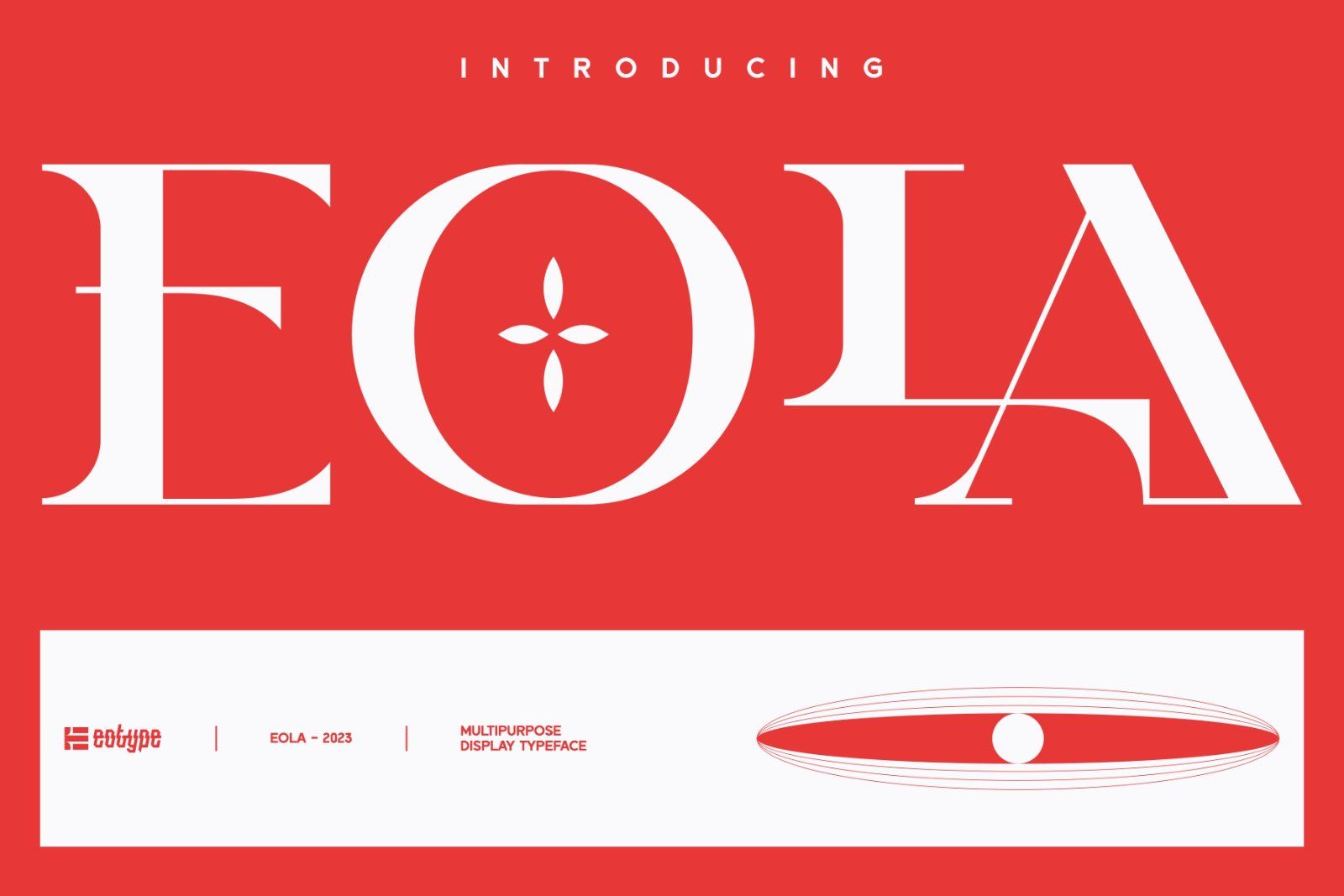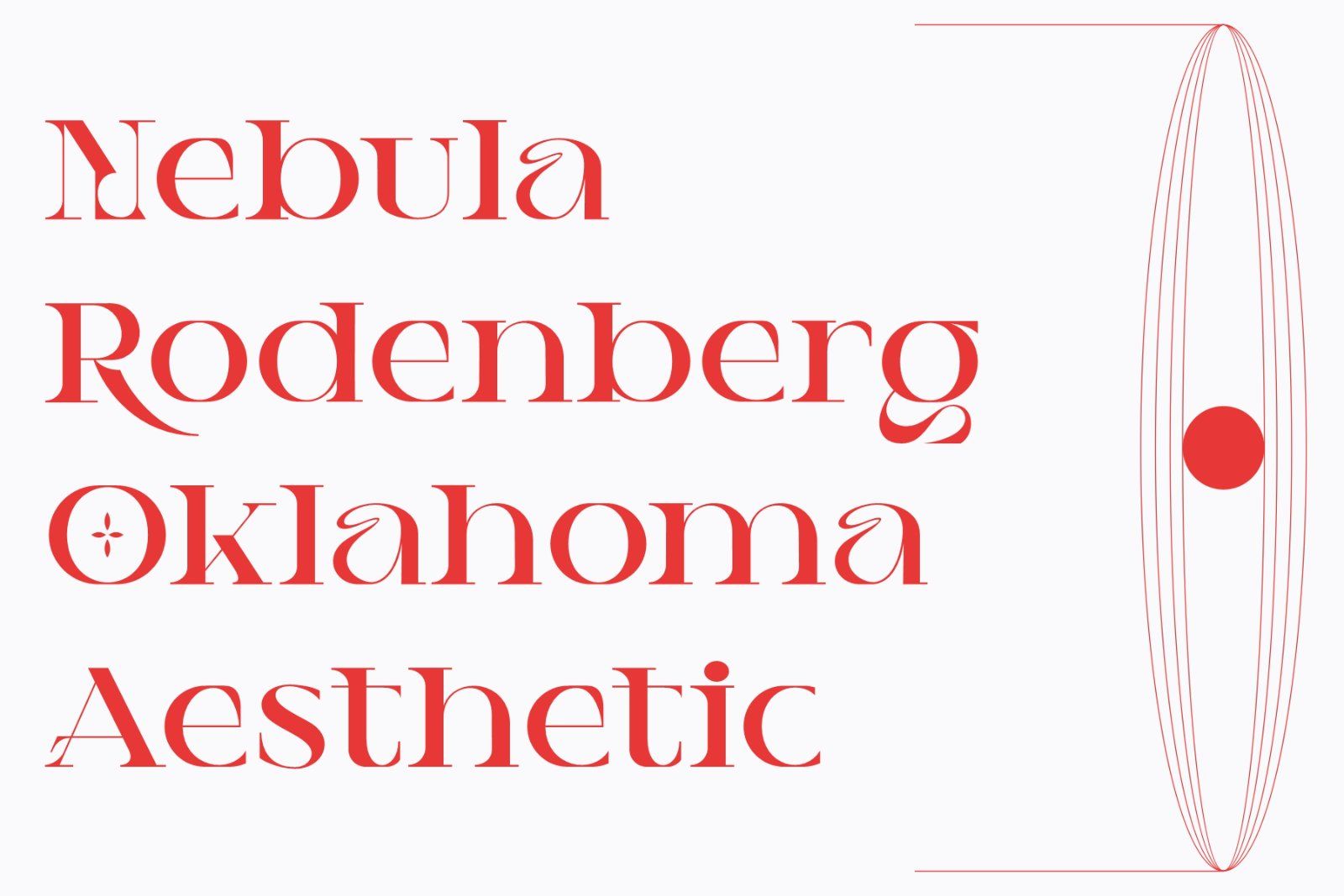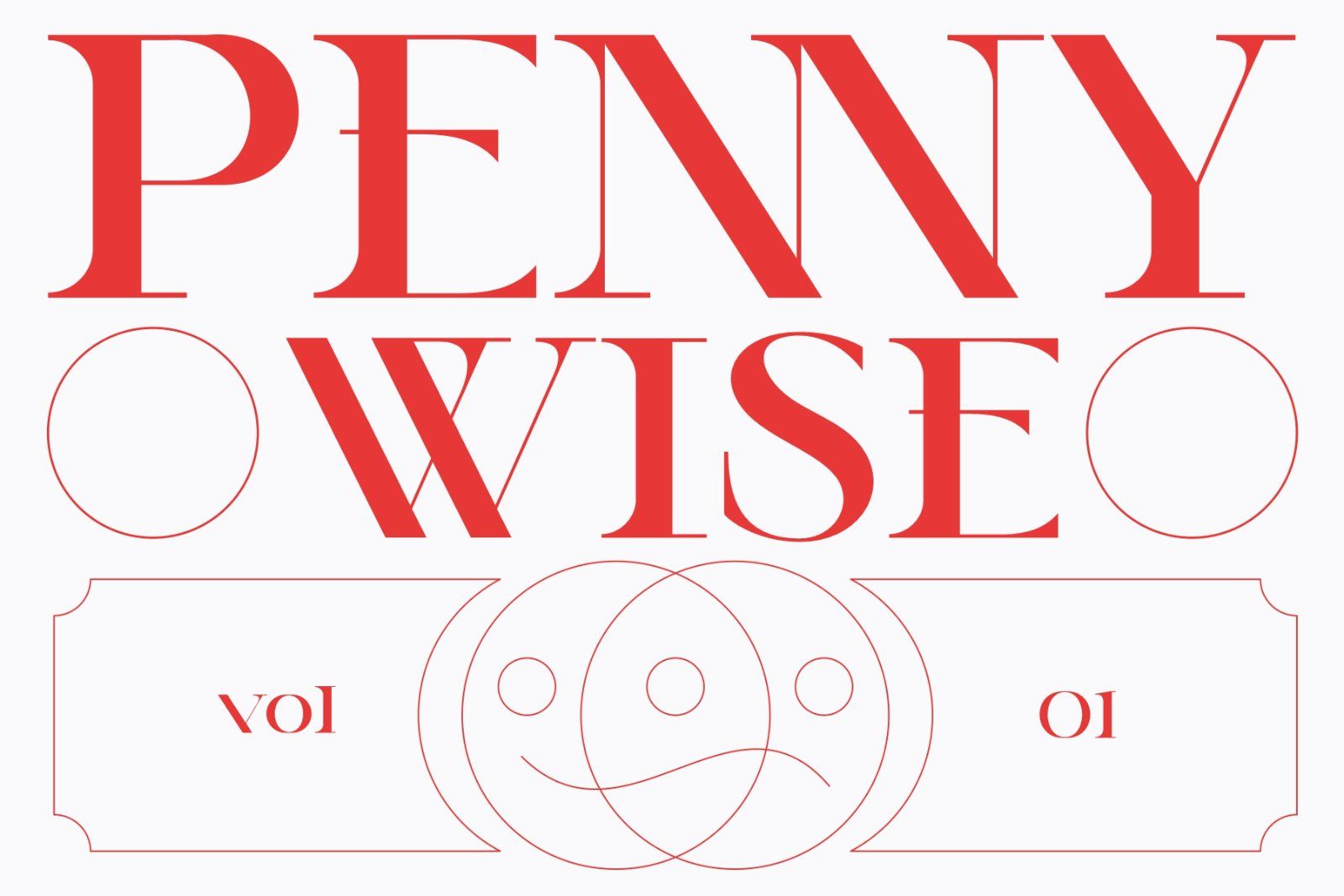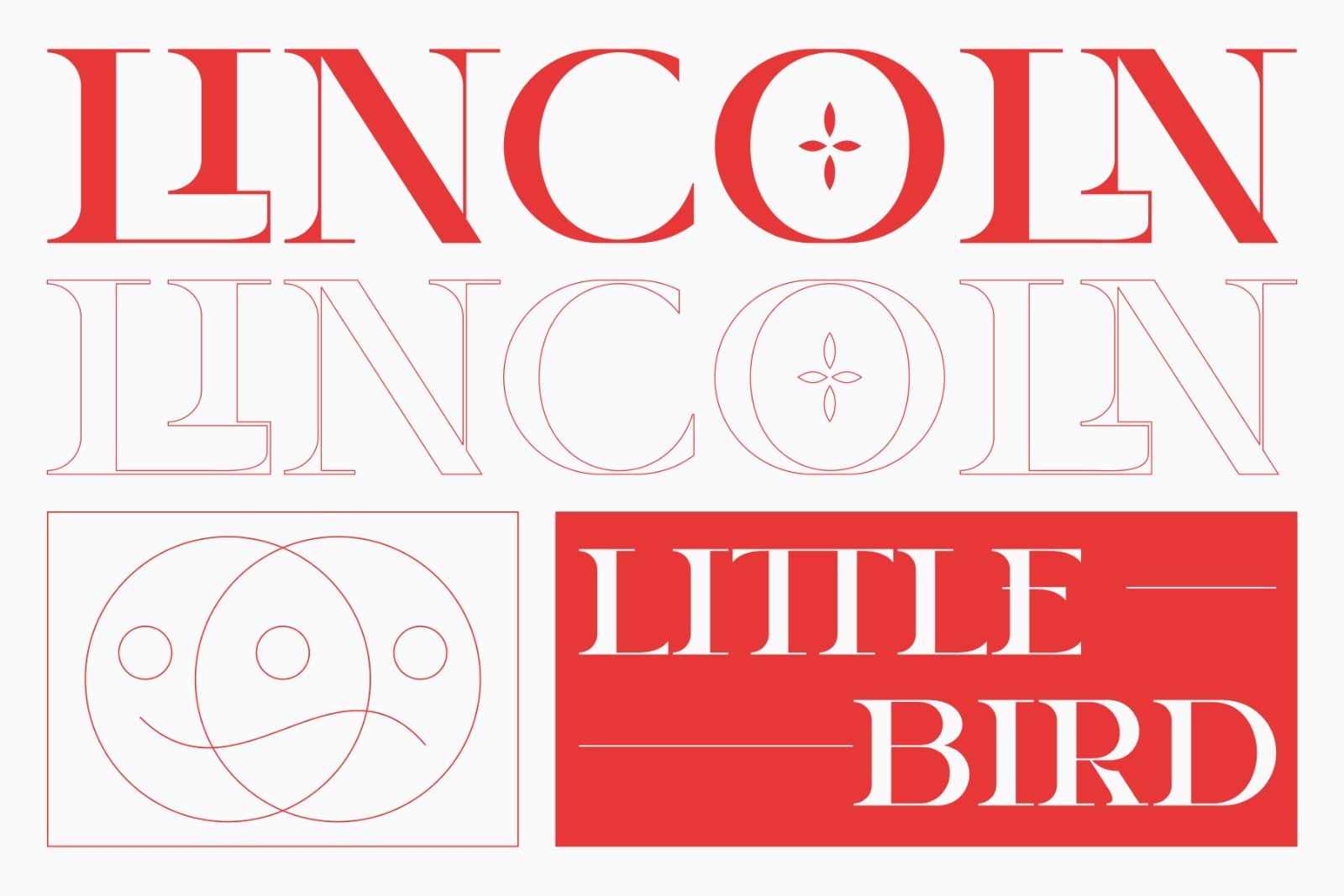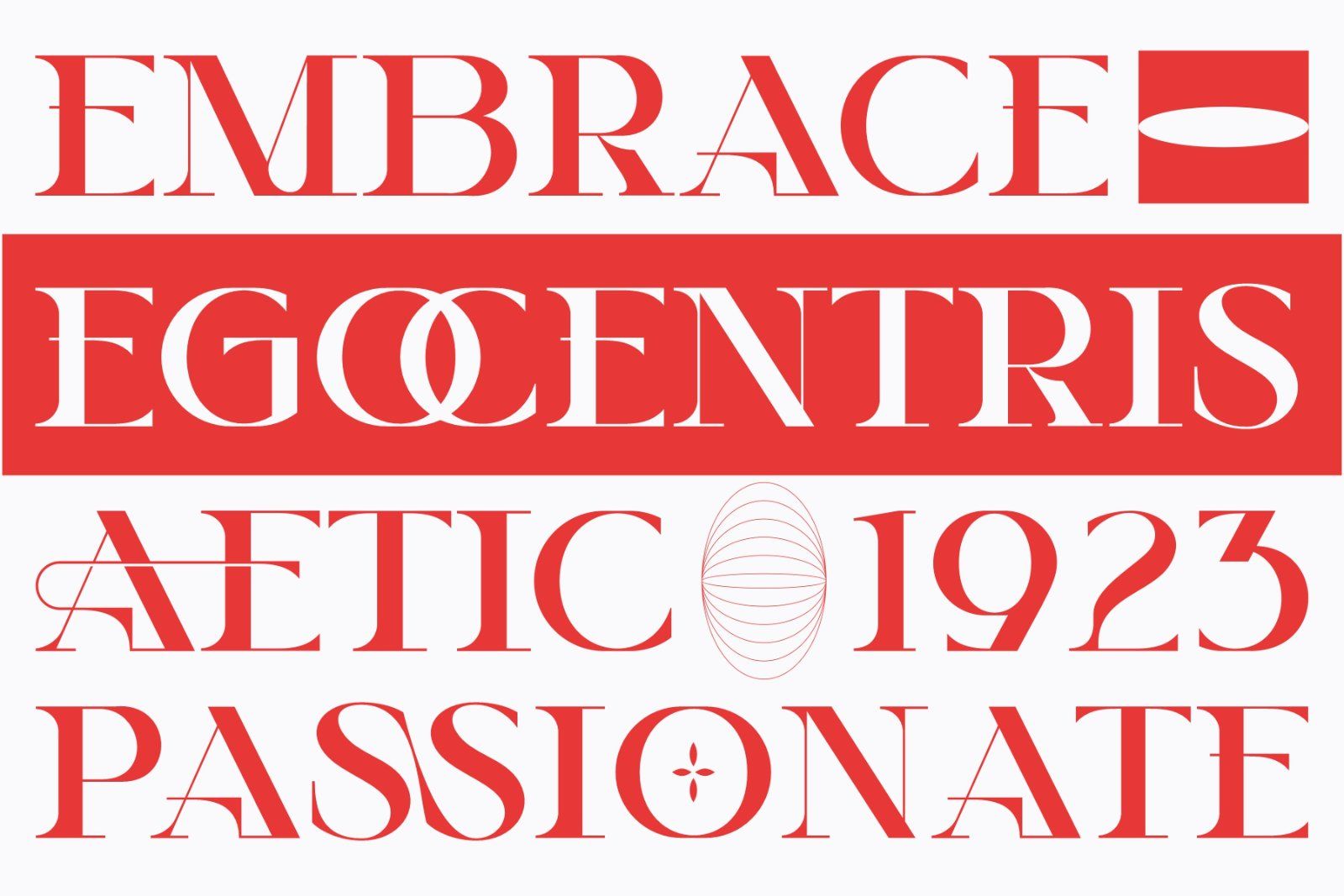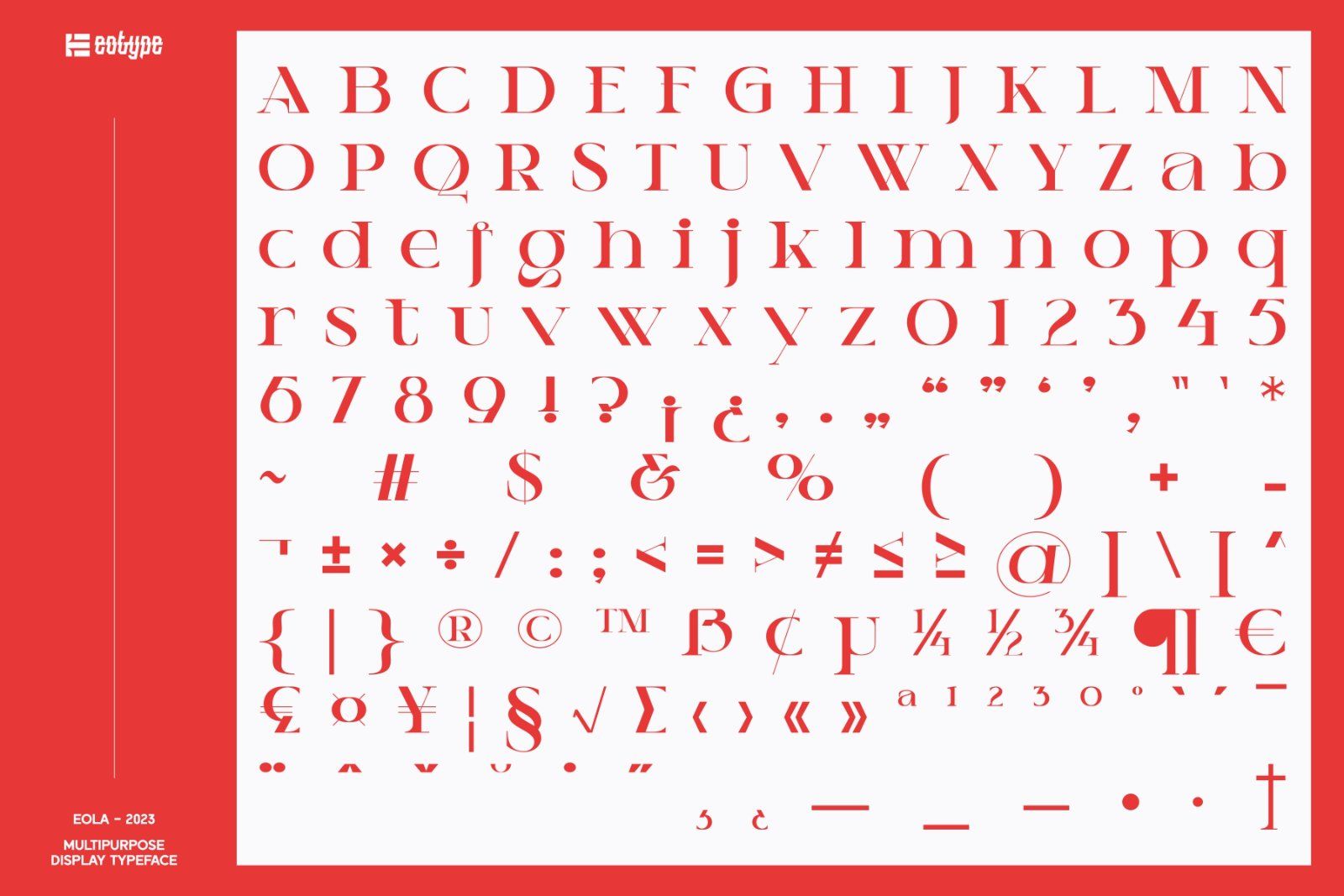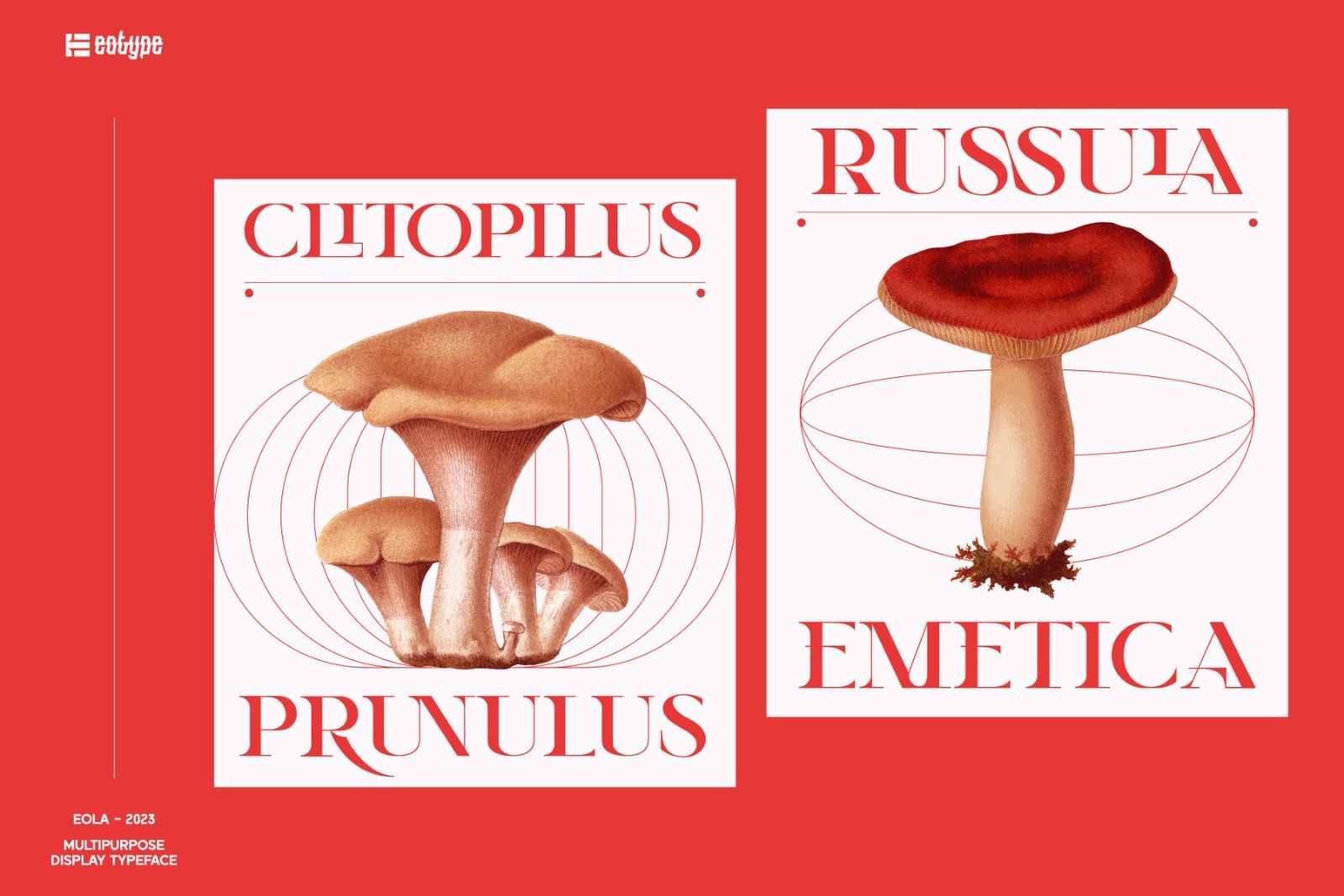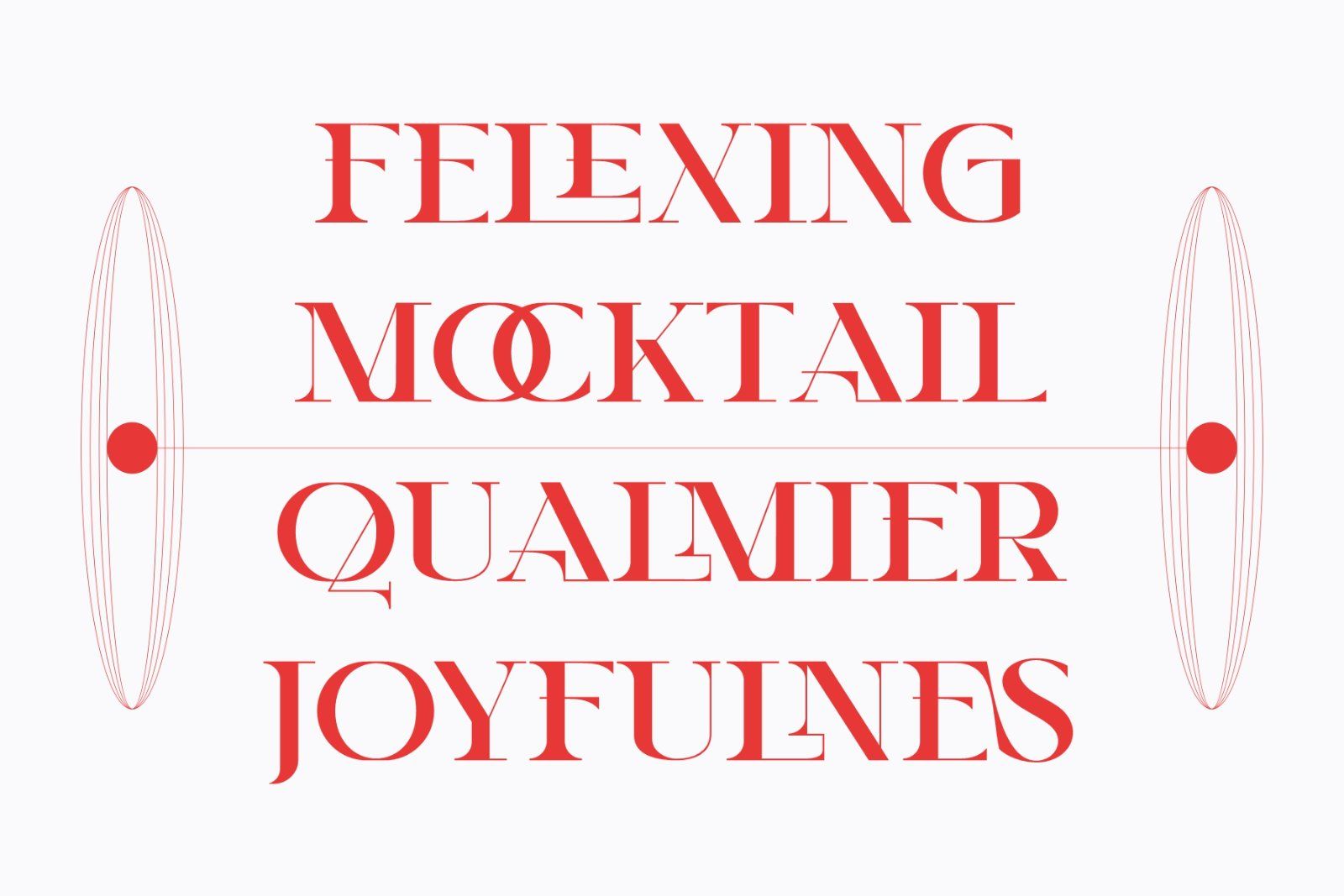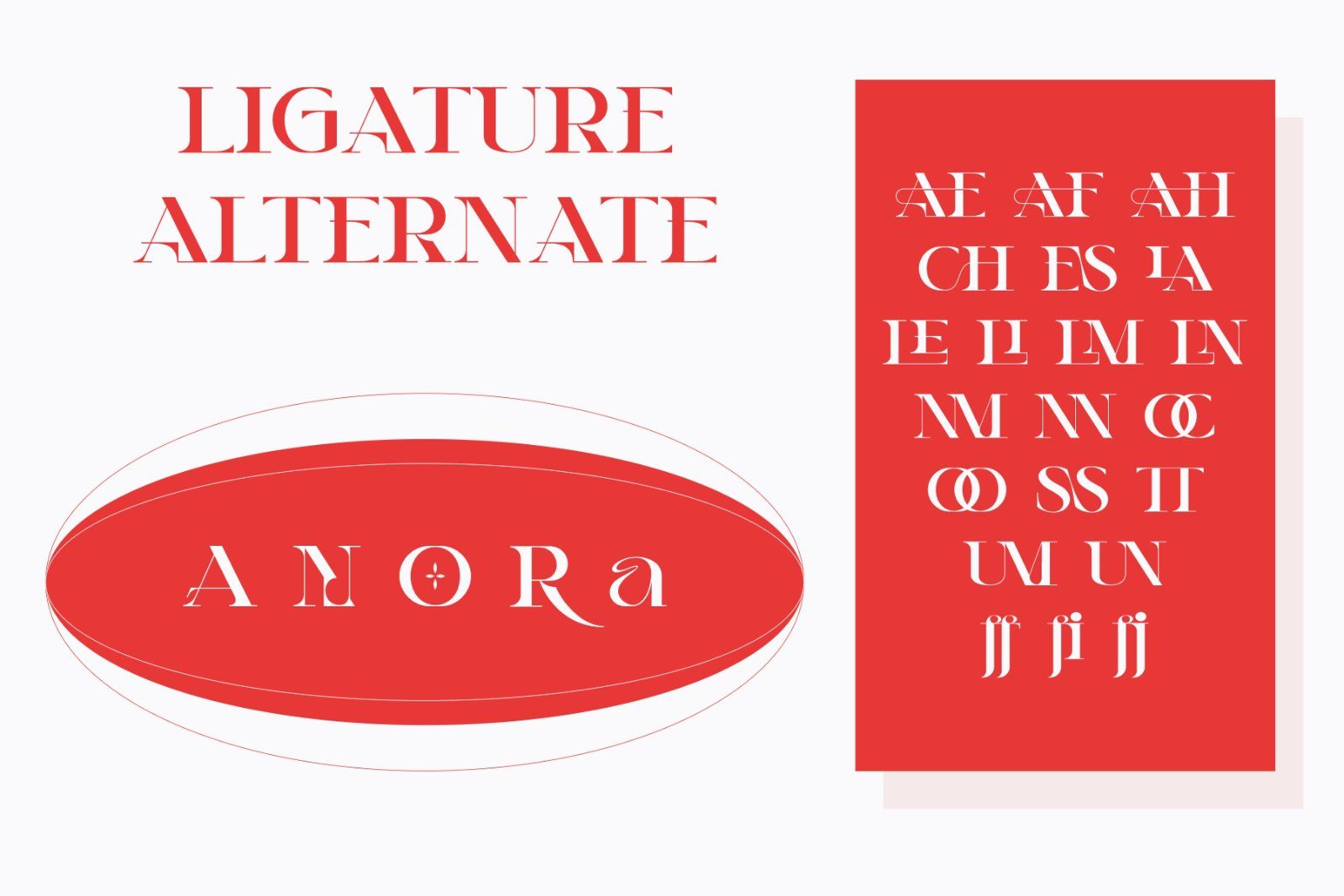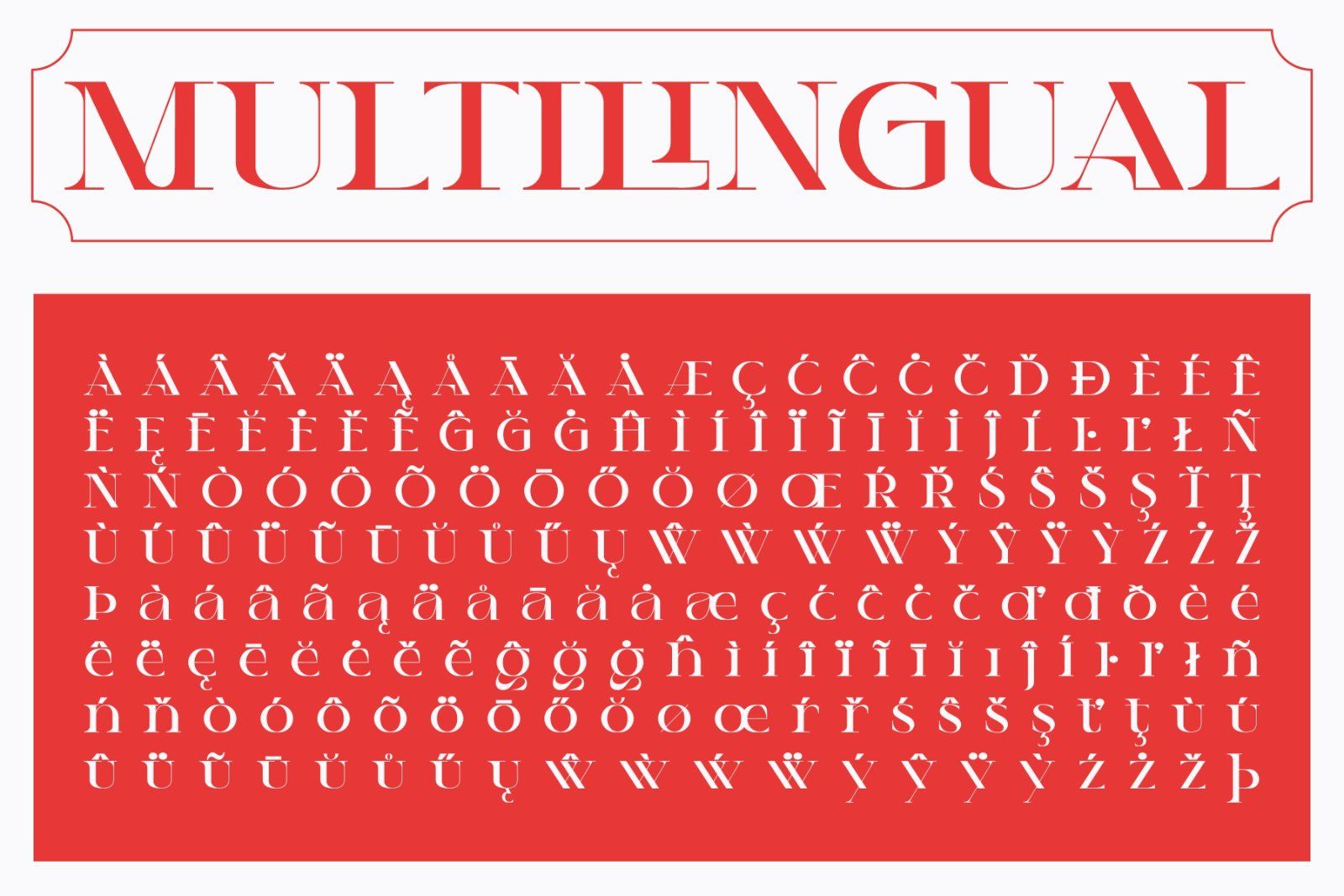
Eola is a stylish serif font characterized by contrast between thick and thin lines. This font has a serif style that features a modern-classic blend design. This font has alternate and ligature features that give you access to a unique collection of letters.